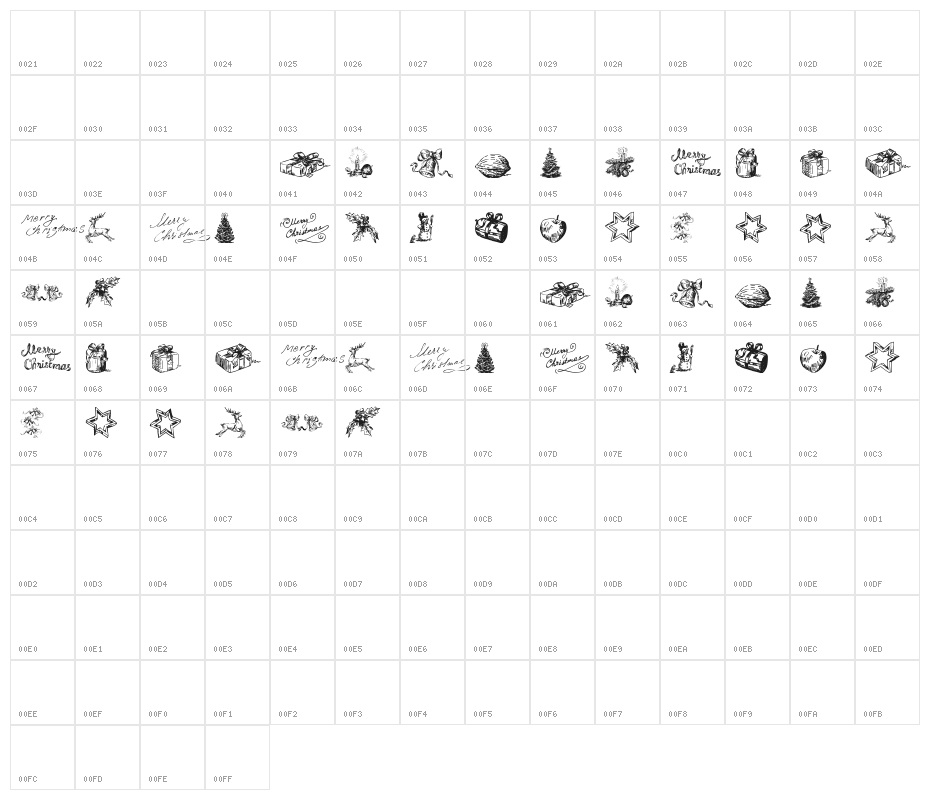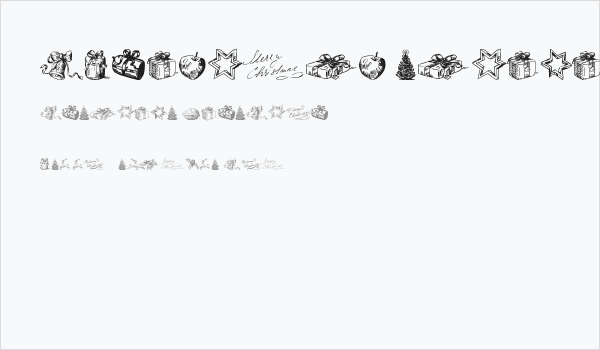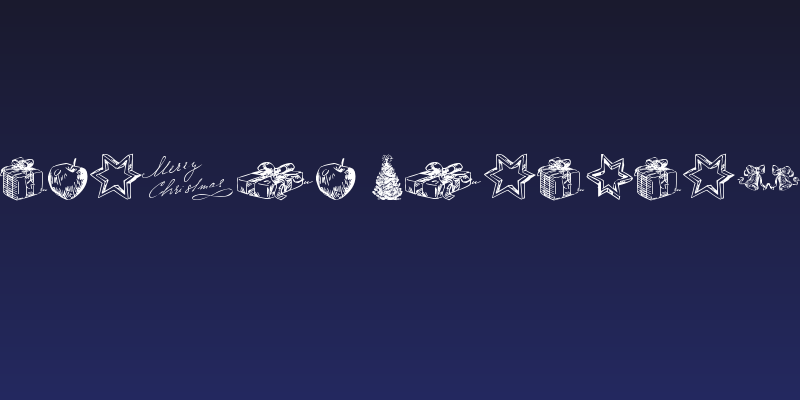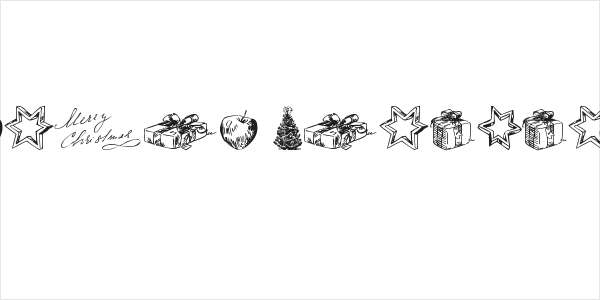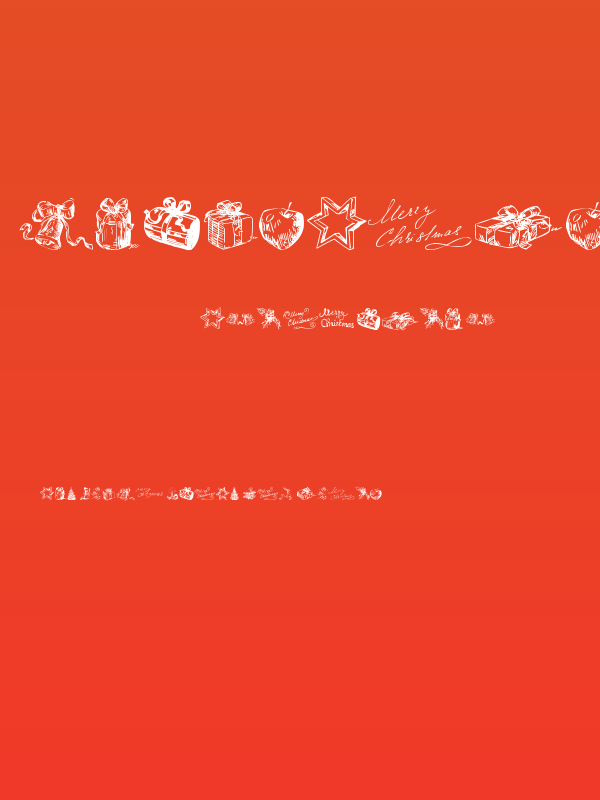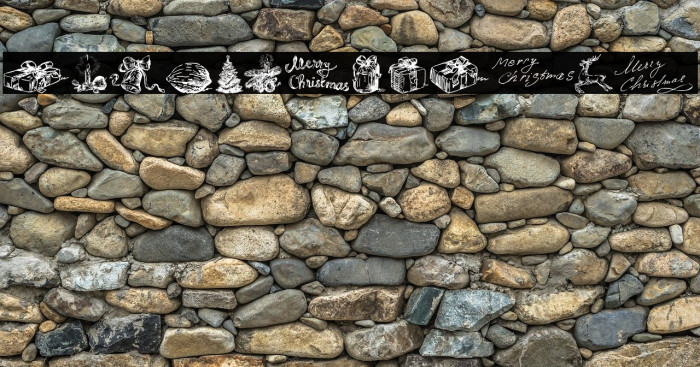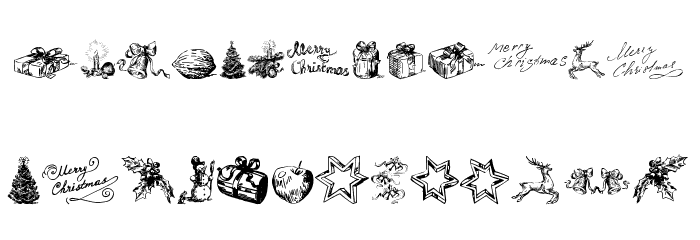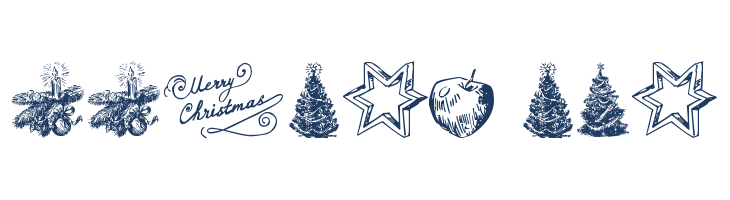
Christmas Nativity TFB Font
This is a decorative font featuring a variety of Christmas-themed illustrations. Each character is represented by a unique festive icon, such as Christmas trees, gifts, stars, and reindeer. The style is reminiscent of hand-drawn sketches, providing a vintage and whimsical feel. The characters are intricately detailed, capturing the essence of holiday cheer. This font is perfect for adding a festive touch to any project, with its playful and artistic design. The illustrations are consistent in style, offering a cohesive look across different characters.
| Proposed Projects | Ideal for holiday cards, festive invitations, Christmas-themed posters, and seasonal decorations. |